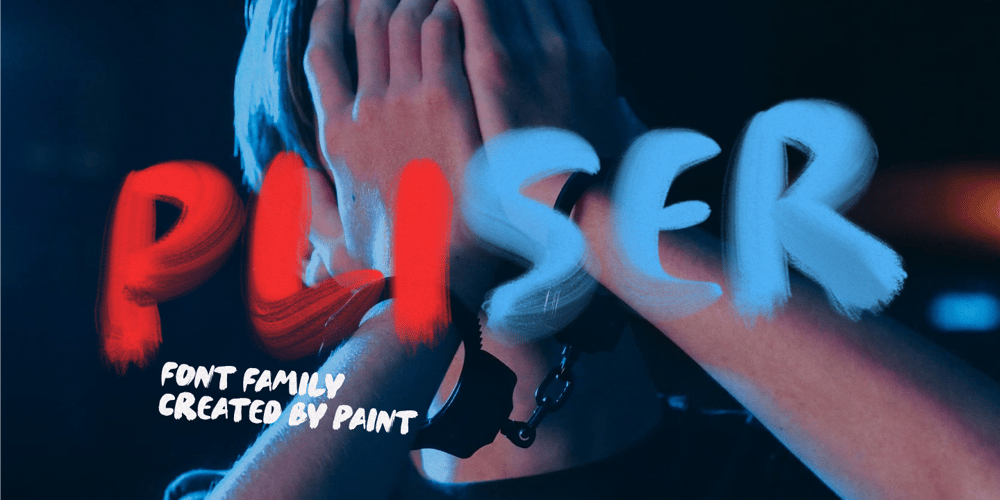
Pliser
Pliser font
Pliser Font Family was designed by Lauritta Ivanova and published by Luxfont. Pliser contains 3 styles and family package options. Get inspired by the world of painting with unique PLISER SVG raster font. This font is a real work of art, where each letter is created from strokes of paint, creating a bewitching color.Features:- Ability to adapt letters to other languages- Transparency & Texture- KerningIMPORTANT:- Check the glyphs in the font before buying!- SVG fonts contain raster letters.- Check it www.colorfonts.wtf- Try a FREE DEMO version before buying.ld.luxfont@gmail.com